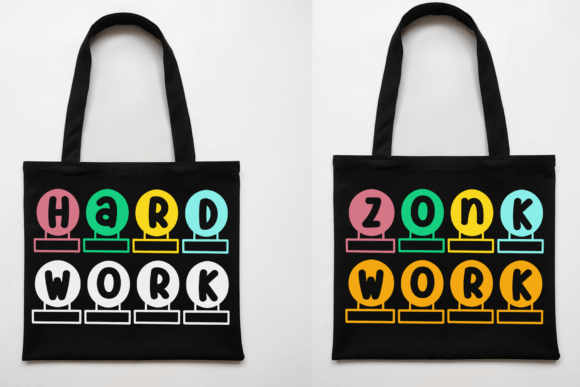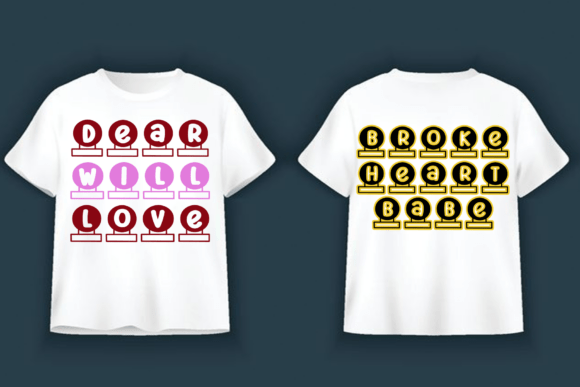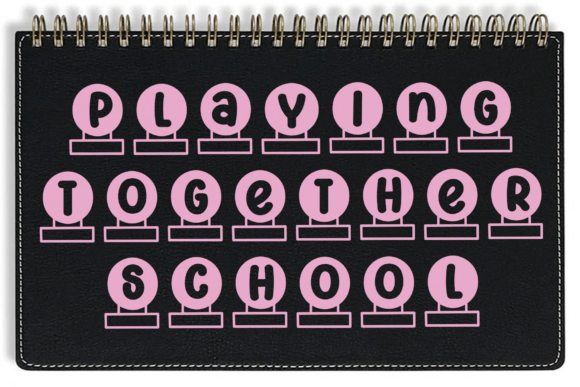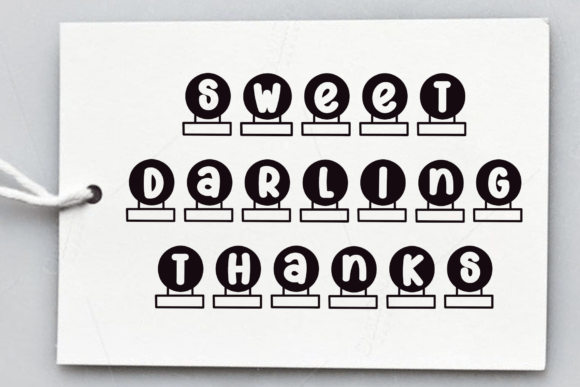
Introduction to Roasting Font
Have you ever been stuck in a creative rut, staring at a blank canvas, wondering how to bring your design to life? I know I have. One moment that stands out in my memory is when I was working on a branding project for a new food truck. I wanted to create a fun and playful logo, but nothing seemed to be working. That’s when I stumbled upon the Roasting Font – a simple yet elegant font that added just the right touch to my design.
The Roasting Font is a versatile design resource that can be used for a wide range of creative projects, from social media graphics to t-shirt designs. Its transparent background makes it easy to customize and layer with other design elements. And the best part? It’s available for free download, making it an invaluable asset for designers on a budget.
Whether you’re a seasoned designer or just starting out, the Roasting Font is a valuable addition to your design toolkit. Its high-quality design makes it perfect for logos, quotes, and banners, and its simplicity ensures that it won’t overpower your creative project. In this article, we’ll take a closer look at the Roasting Font and explore its many uses and benefits.
Key Features of Roasting Font
- High-quality design resource ideal for creative projects, including graphic designs, logos, and branding materials.
- Comes with a transparent background, allowing for seamless integration into various design backgrounds.
- Unique, hand-crafted design elements that add a touch of sophistication to any creative project.
- Perfect for designers looking for a versatile and high-quality design resource to elevate their work.
Honest Review: Roasting Font
As a designer, I’m always on the lookout for high-quality design resources to elevate my creative projects. Recently, I stumbled upon the Roasting Font and was excited to give it a try.
- ✨ The transparent background makes it easy to incorporate into any design project, whether it’s a logo, poster, or web page.
- ✨ The font is well-designed and visually appealing, with a unique style that sets it apart from more generic fonts.
- ⚠️ The font is not as versatile as some other design resources, which may limit its use in certain creative projects.
Overall, I was impressed with the Roasting Font and would recommend it to designers looking for a high-quality, free design resource. While it may have some limitations, its unique style and transparent background make it a valuable addition to any design project.
To get the most out of Roasting Font, experiment with different font sizes, colors, and styles. You can also combine Roasting Font with other design elements, such as images and shapes, to create a unique and eye-catching design.
Common Use Cases for Roasting Font
Roasting Font is ideal for designing logos, business cards, and other marketing materials. You can also use Roasting Font to create social media graphics, presentations, and other creative projects.
Yes, Roasting Font is suitable for digital projects, including web design, mobile app design, and video editing. The font is highly legible and scalable, making it perfect for use in digital interfaces. However, please note that you may need to use a web font version of Roasting Font for optimal display on the web.